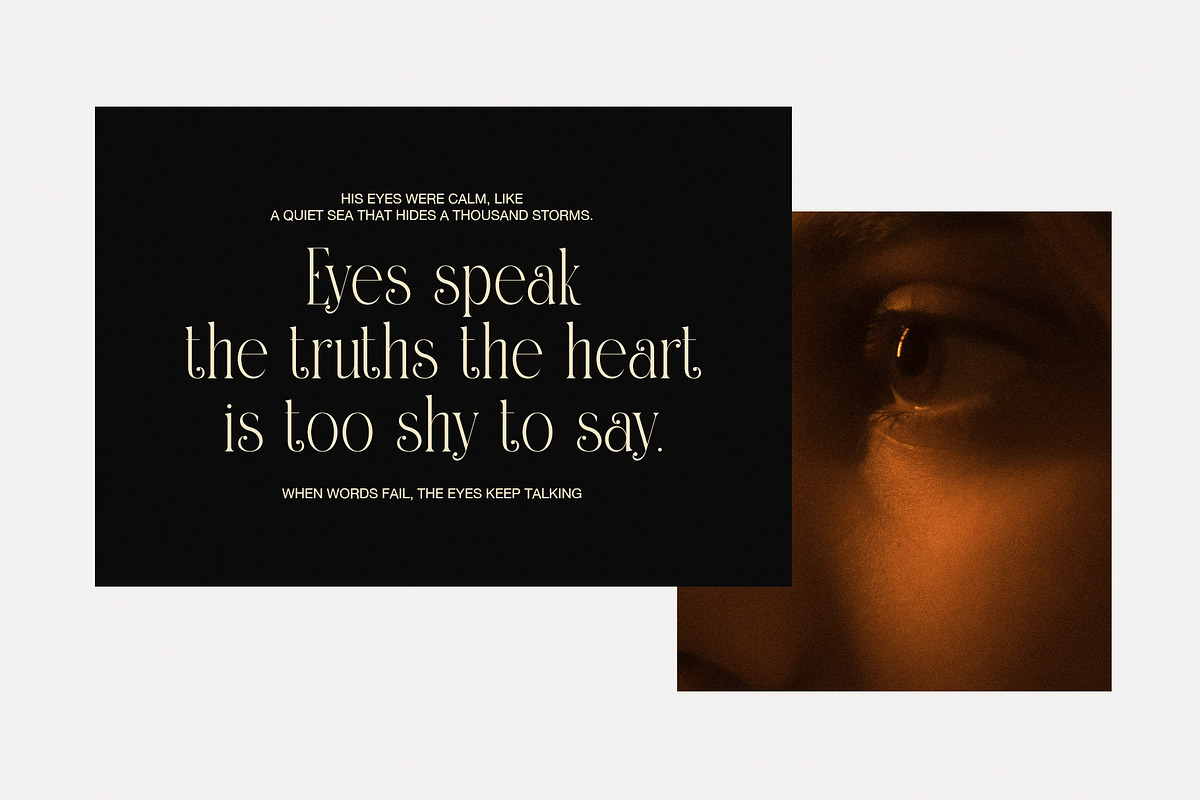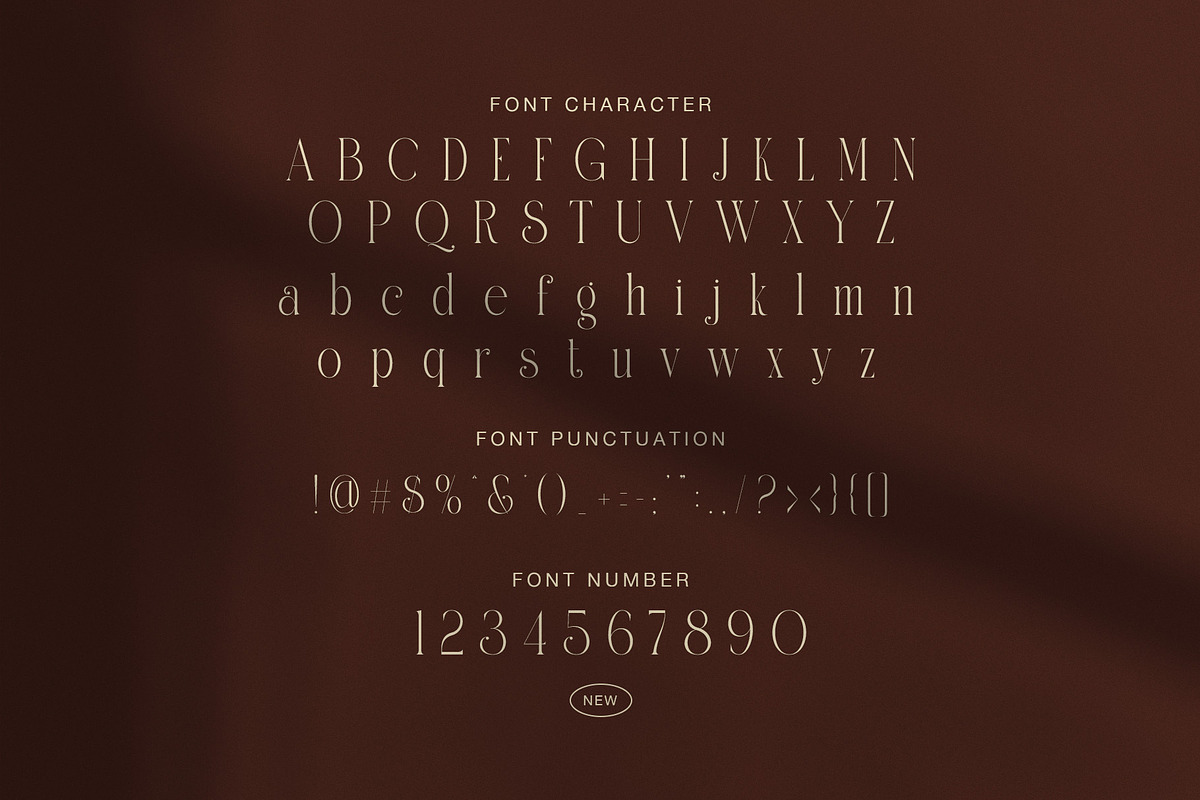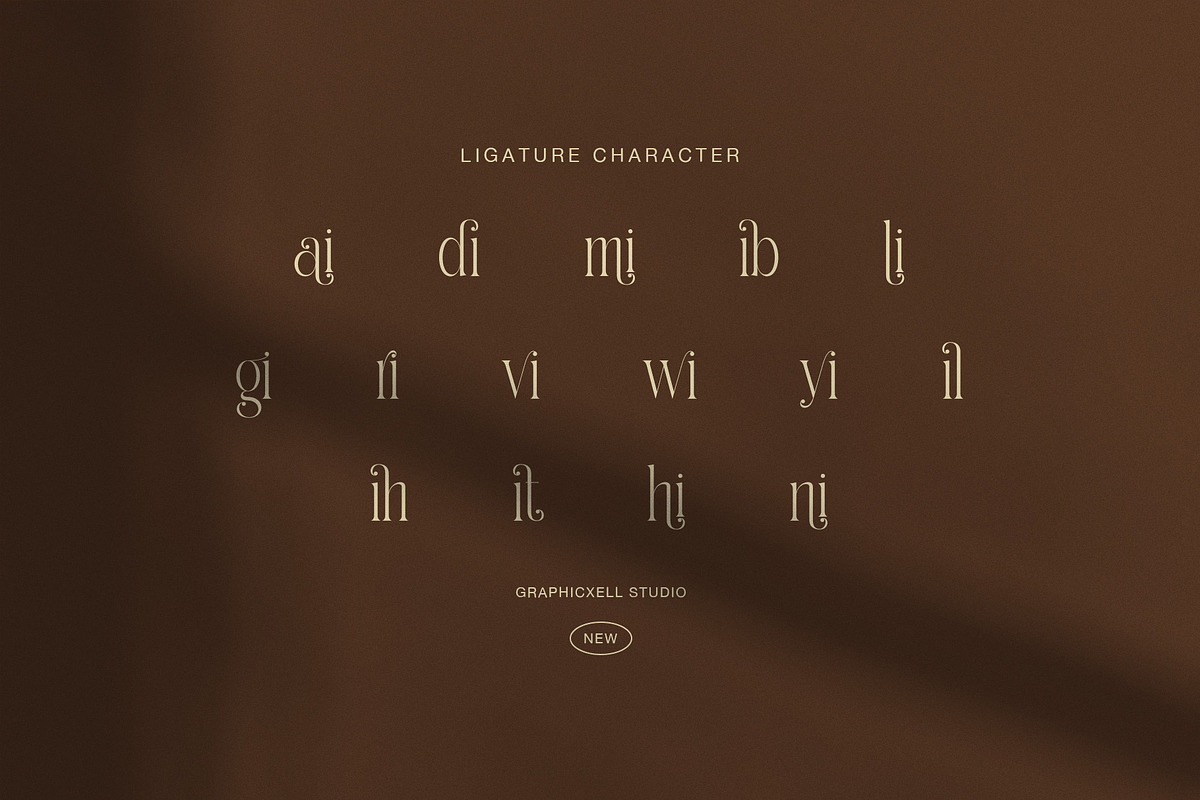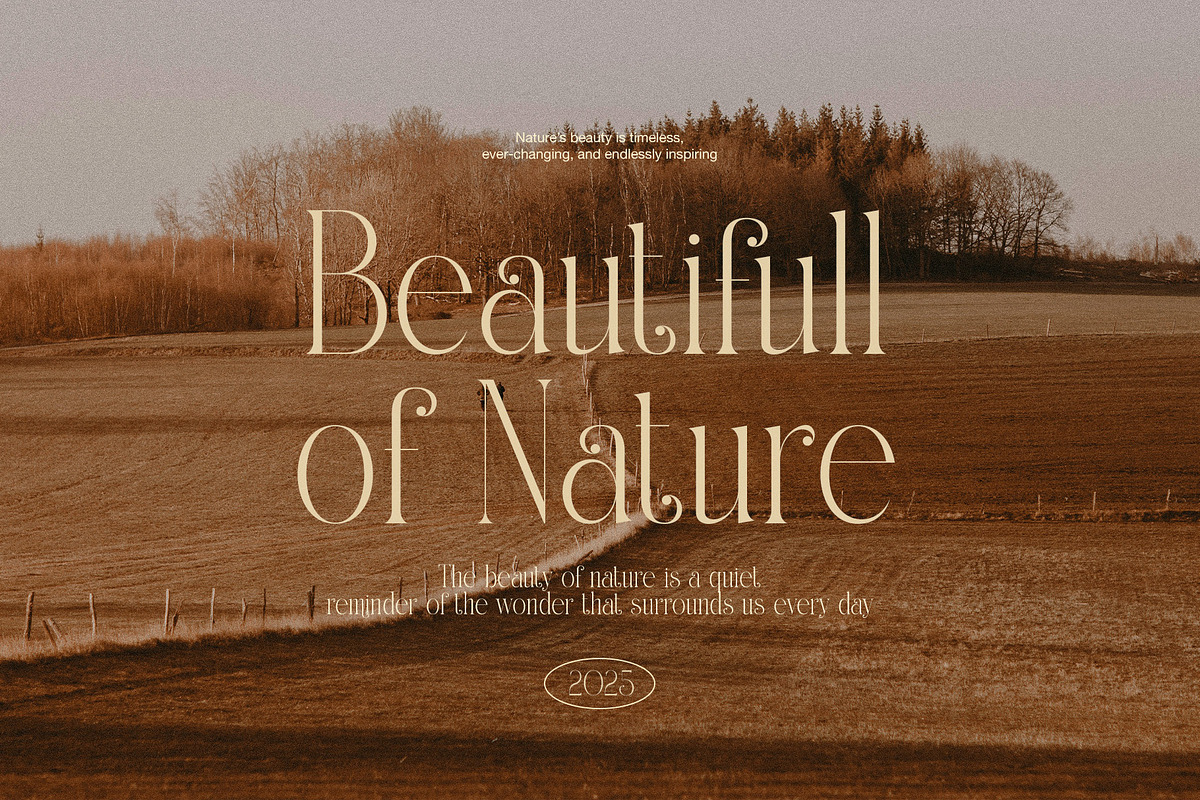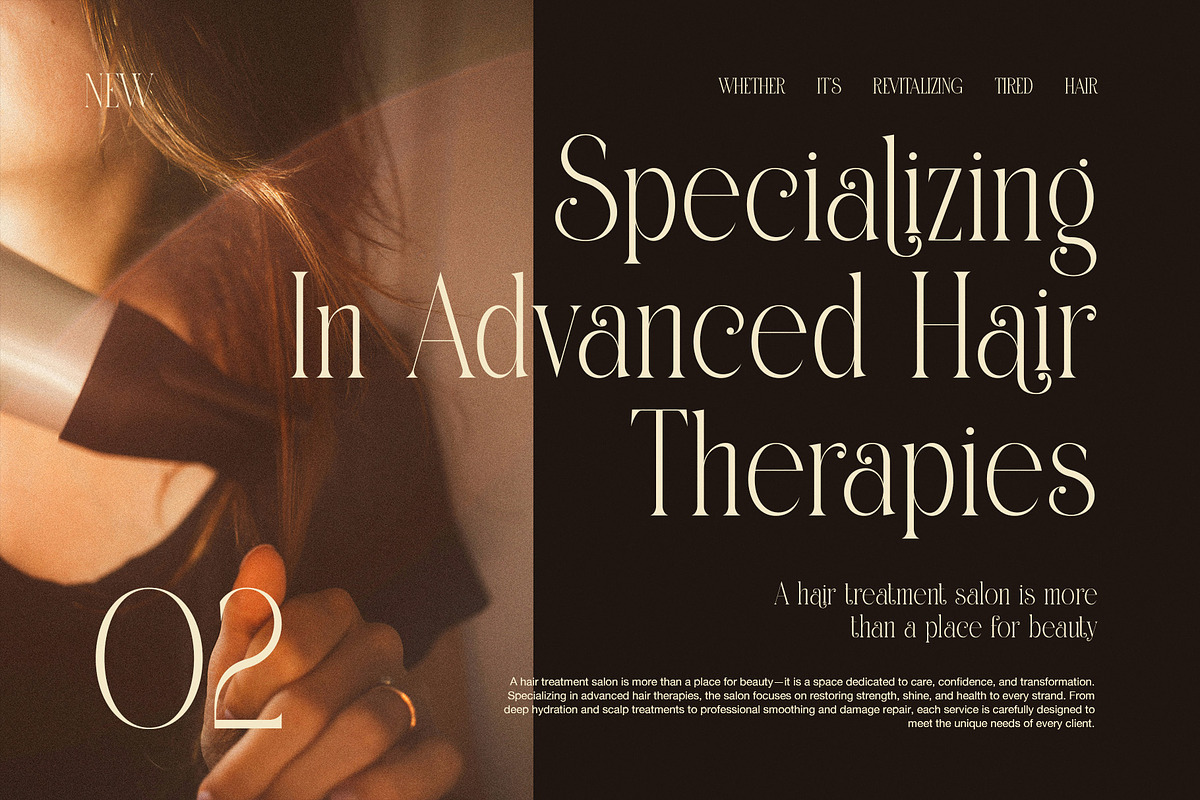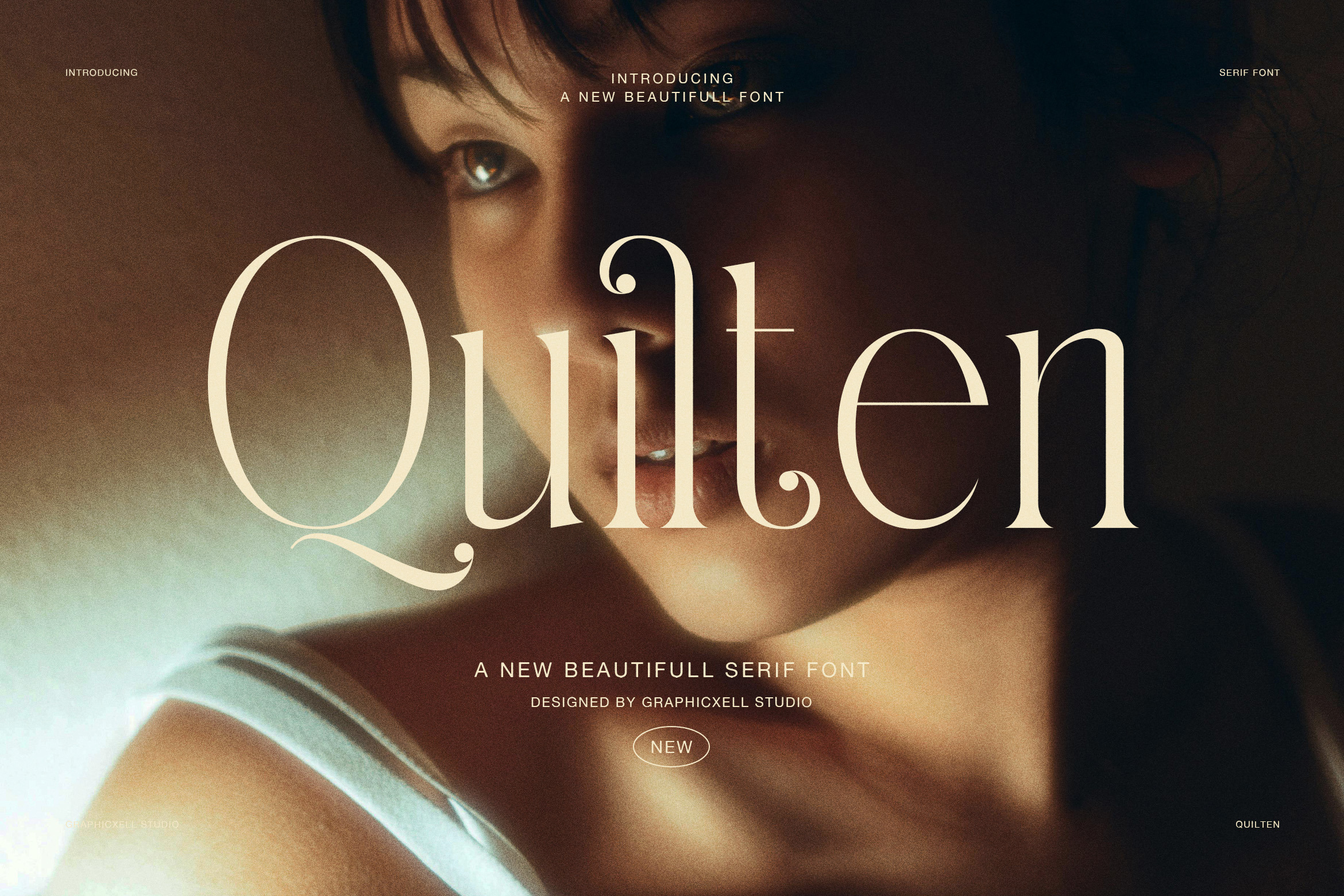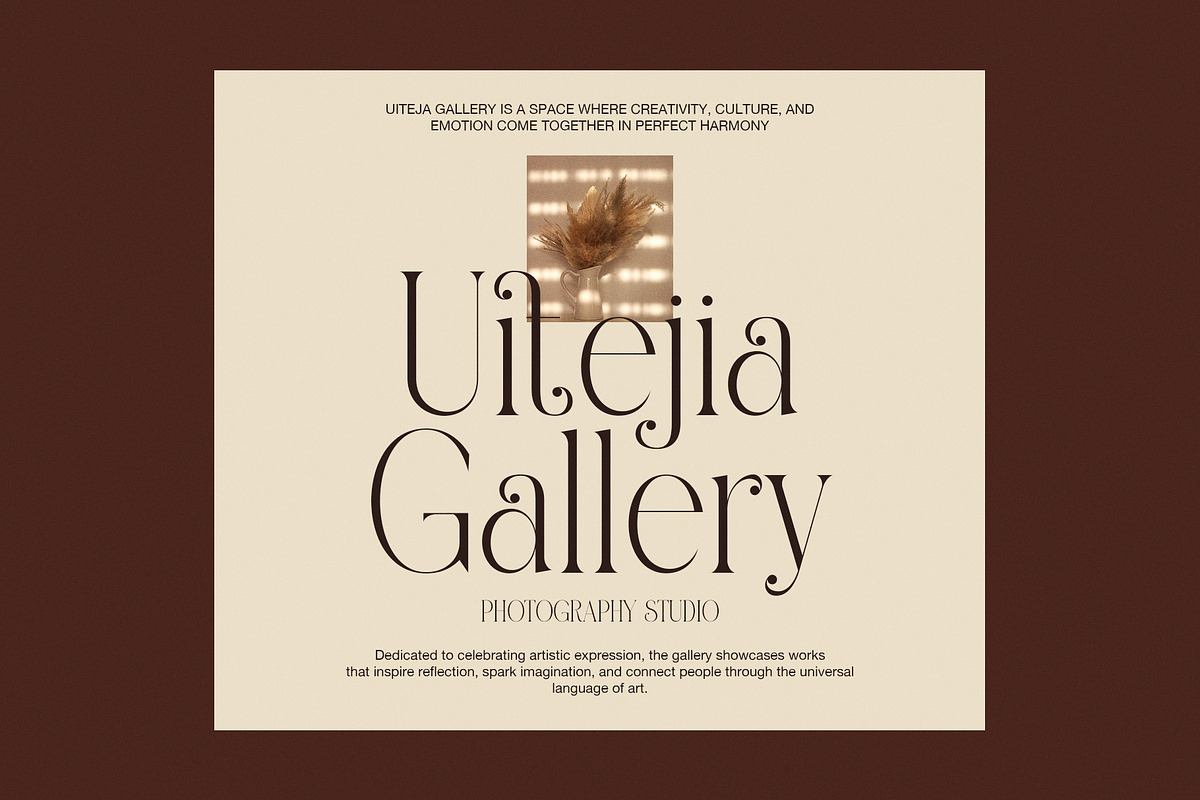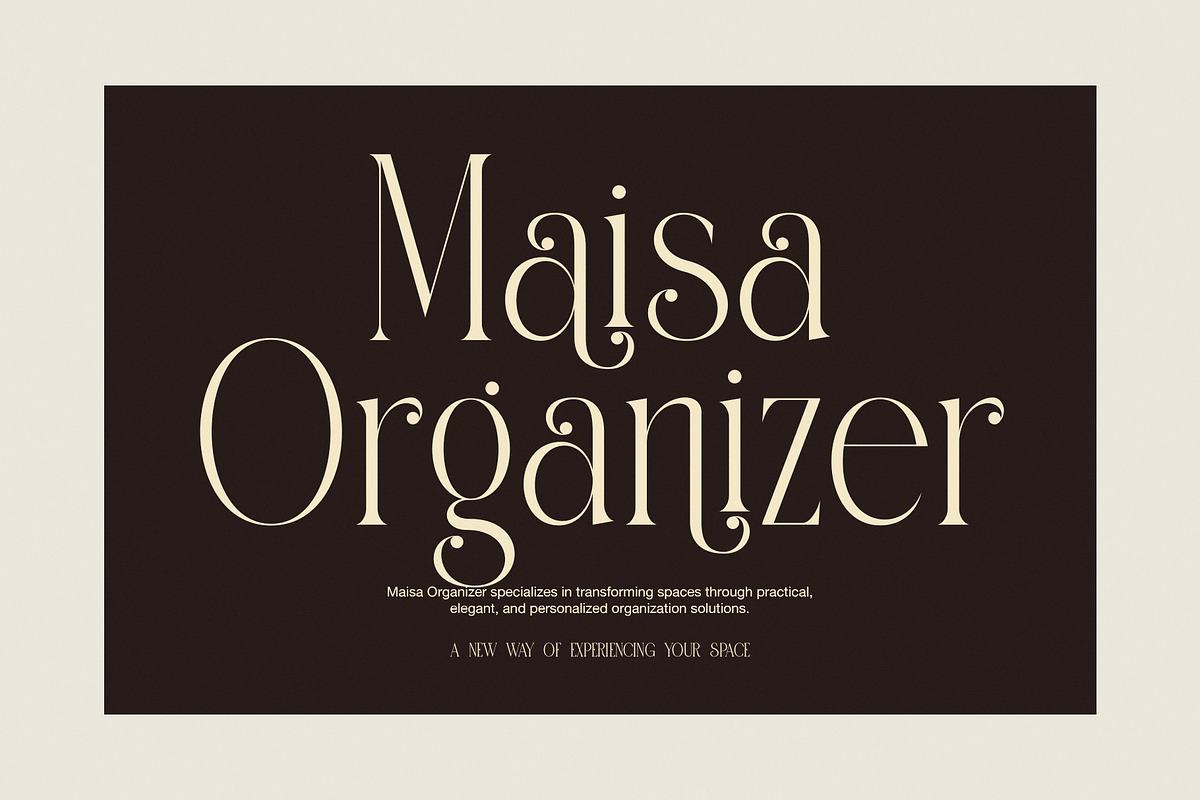
Quilten Elegant Serif Font
Quilten is an elegant serif font designed to bring refined beauty to modern design. Its graceful curves and soft contrast create a calm, luxurious feeling that instantly elevates any layout. Because the letterforms feel smooth and balanced, this font works beautifully for branding, editorial projects, and premium visuals.
At first glance, Quilten appears delicate. However, it also has a strong personality. The long terminals, subtle flourishes, and flowing shapes add charm without reducing readability. As a result, headlines look expressive while body text remains clear and pleasant to read.
Moreover, Quilten adapts easily to many themes. It suits fashion campaigns, beauty packaging, lifestyle magazines, and elegant websites. Whether you design for print or digital media, this font delivers a polished and professional tone.
In addition, Quilten includes carefully crafted alternates and ligatures. These features allow designers to create unique wordmarks and sophisticated typography. When used together, they produce a natural rhythm that feels handcrafted rather than mechanical.
You can use Quilten for many creative purposes, including:
Luxury brand logos and visual identities
Fashion editorials and magazine headlines
Wedding invitations and event stationery
Beauty and skincare packaging
Gallery posters and art presentations
Social media graphics with a premium tone
Because the font balances elegance with clarity, it performs well at both large and medium sizes. The characters maintain their shape even on screens, which makes them ideal for online marketing materials.
Furthermore, the serif details are soft rather than sharp. This choice creates a warm, welcoming mood instead of a strict classical feel. Designers who want sophistication without stiffness will appreciate this approach.
Overall, Quilten is a versatile serif font that blends timeless style with modern elegance. If you need typography that feels graceful, confident, and visually rich, this font provides a beautiful solution.